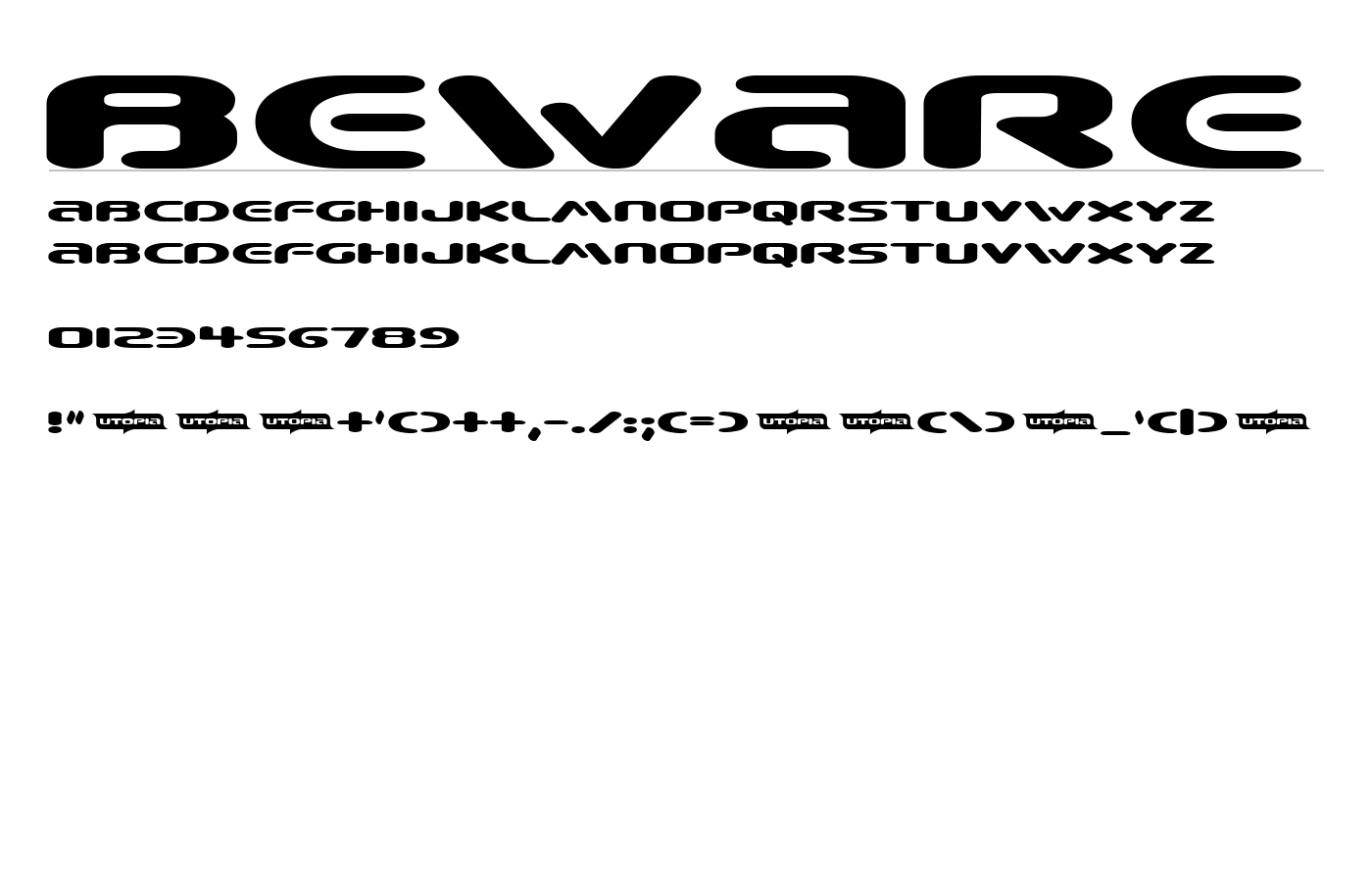
Beware Font is a bold, futuristic sans serif typeface with a strong geometric feel and rounded, heavy strokes that create a compact and modern look. Its unusual letter shapes and solid weight make it ideal for eye-catching headlines, logos, and branding projects that seek a tech-inspired or sci-fi mood. This font works best in display sizes where its distinctive style can command attention and set a dramatic tone.
Beware Font
About Beware Font